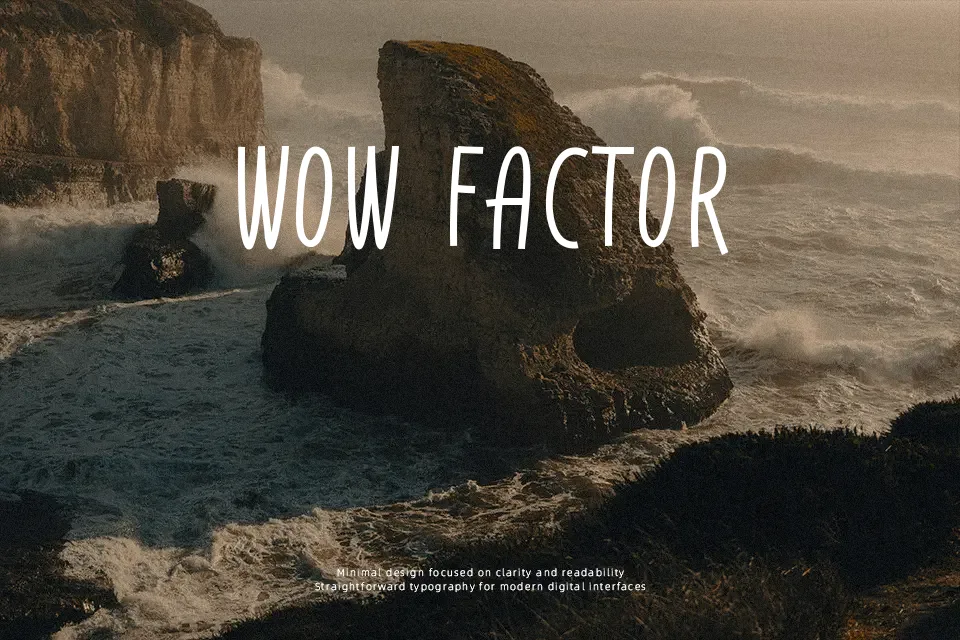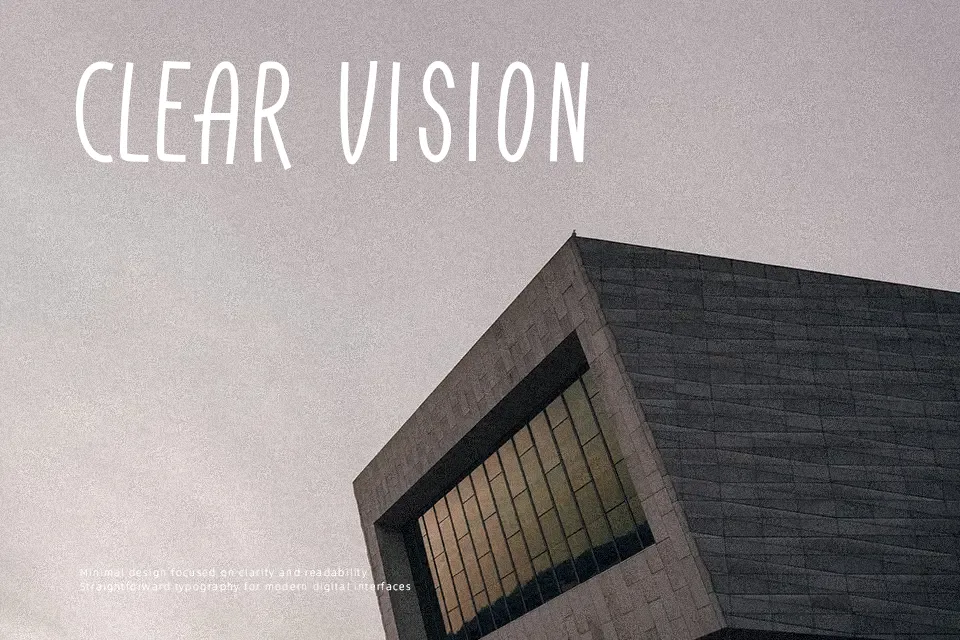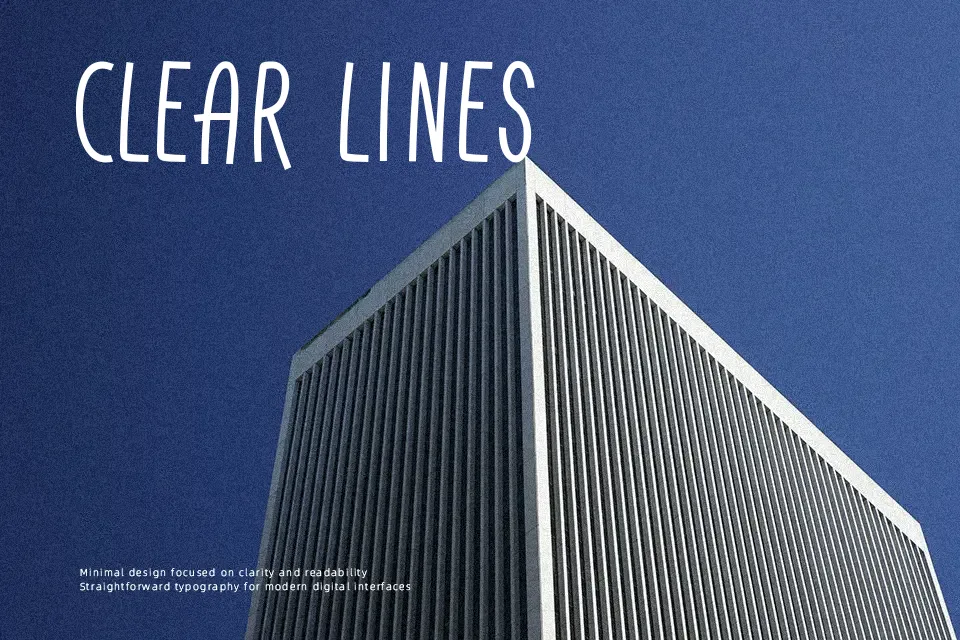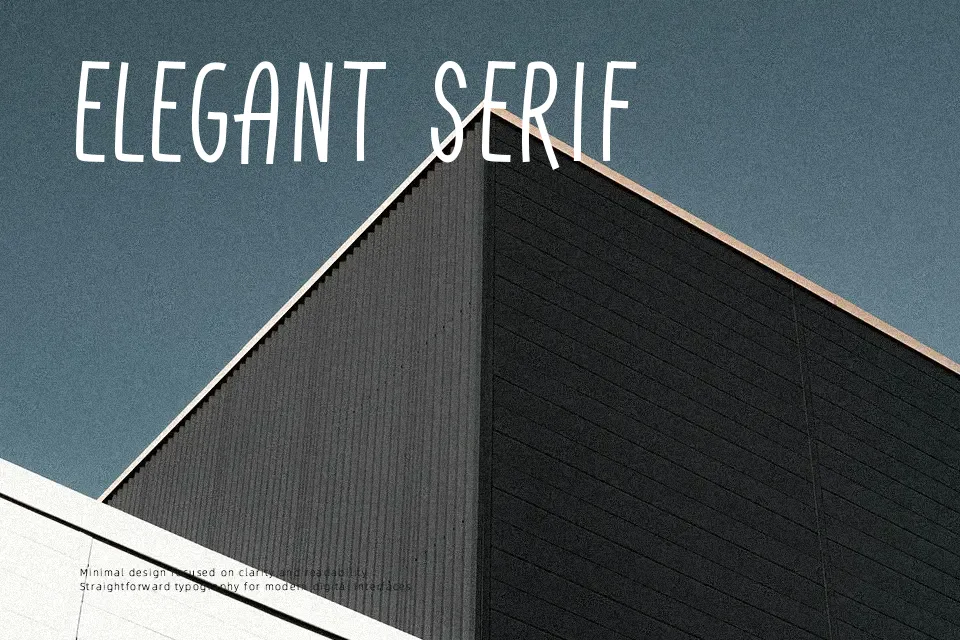
Don Aquarel Font
Designed by Adien Gunarta
Don Aquarel Font has a slim, upright handwritten structure with uneven brush-like strokes, loose spacing, and a slightly dry painted texture. The letters feel tall and casual rather than polished, which gives headlines a handmade, sketchbook mood. It works nicely on café posters, art event flyers, product labels, and social media graphics that need a light artistic touch without becoming overly sweet. The font is less convincing in small sizes, long paragraphs, or interface text, where the narrow forms start to feel fragile and slow to read. If you want a neat script, this one feels more raw and airy.
poster titles,art event branding,product packaging,social media graphics
body text,small UI labels,formal corporate layouts,dense editorial pages
Perfect for branding, packaging, and poster, with a artistic and brush style.